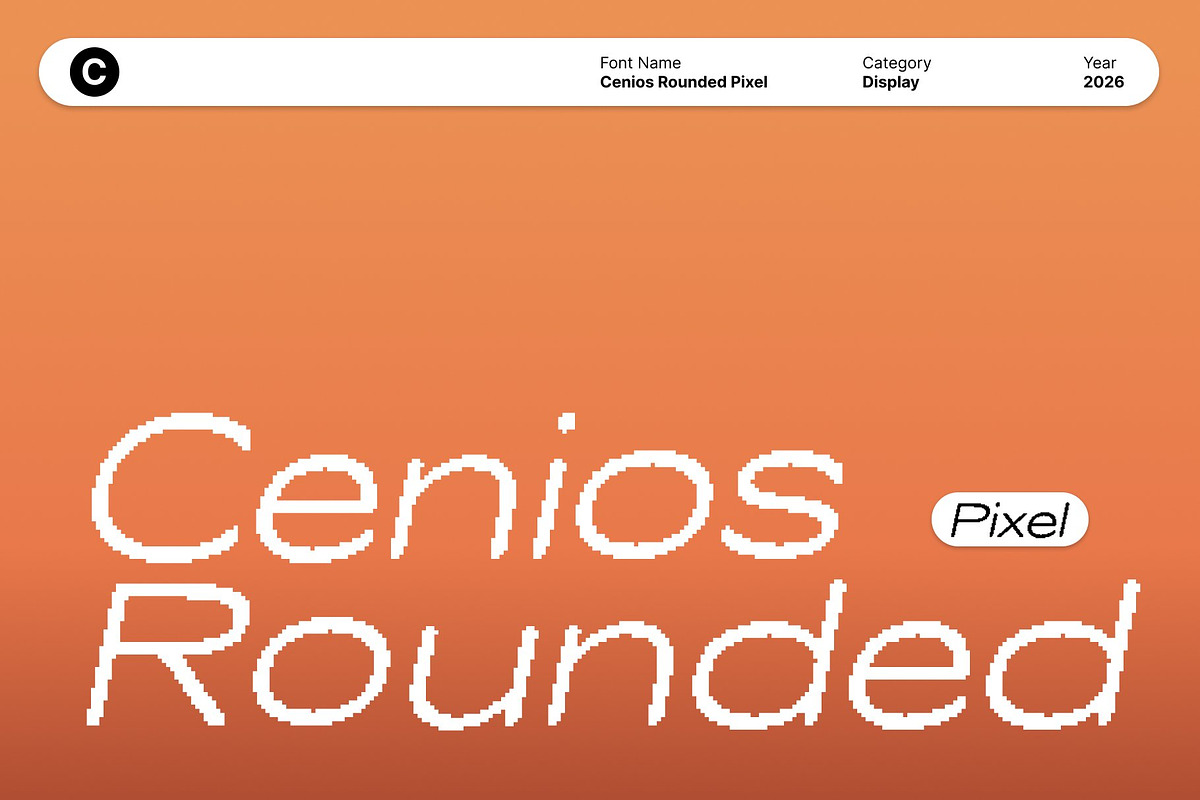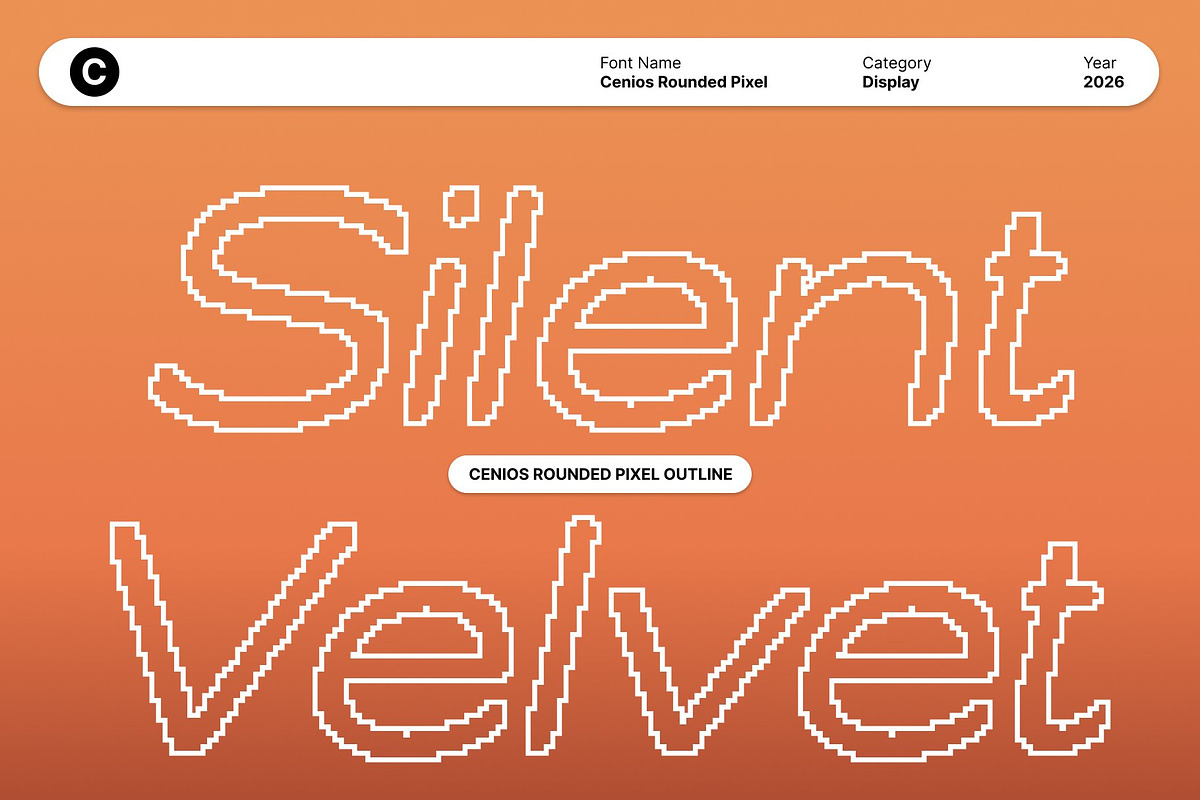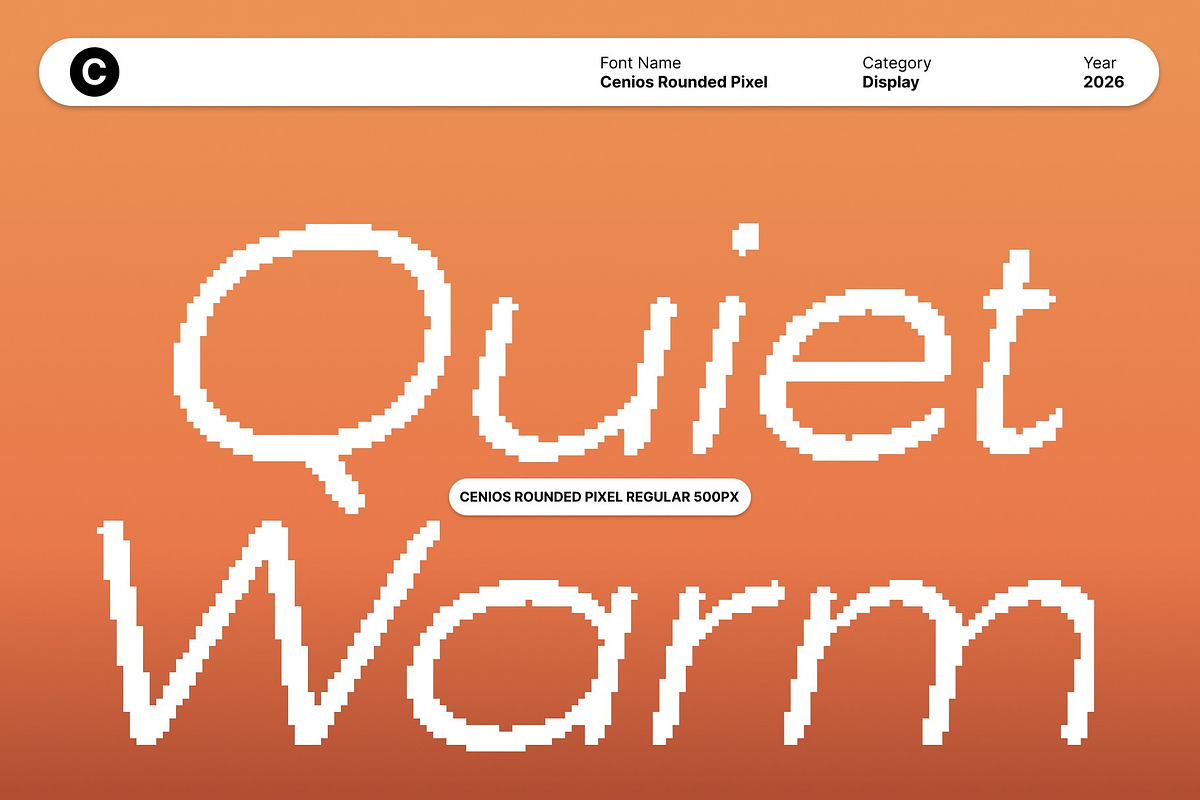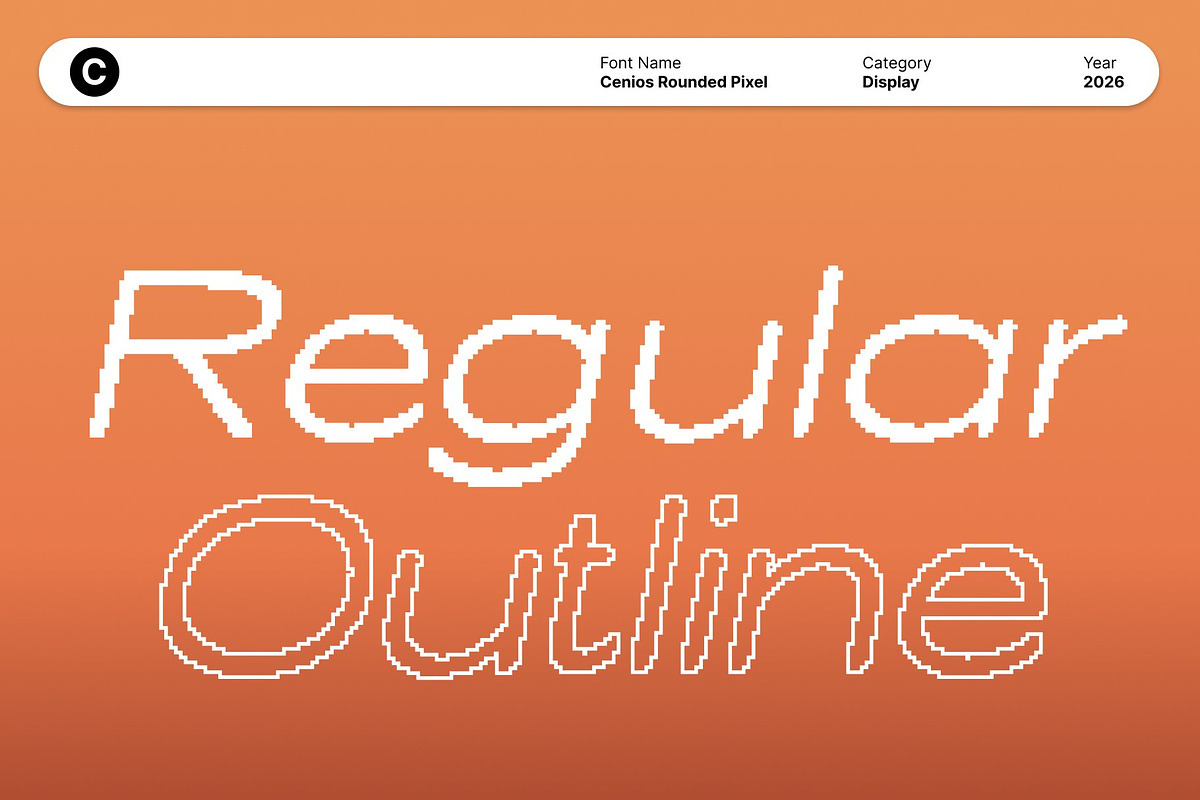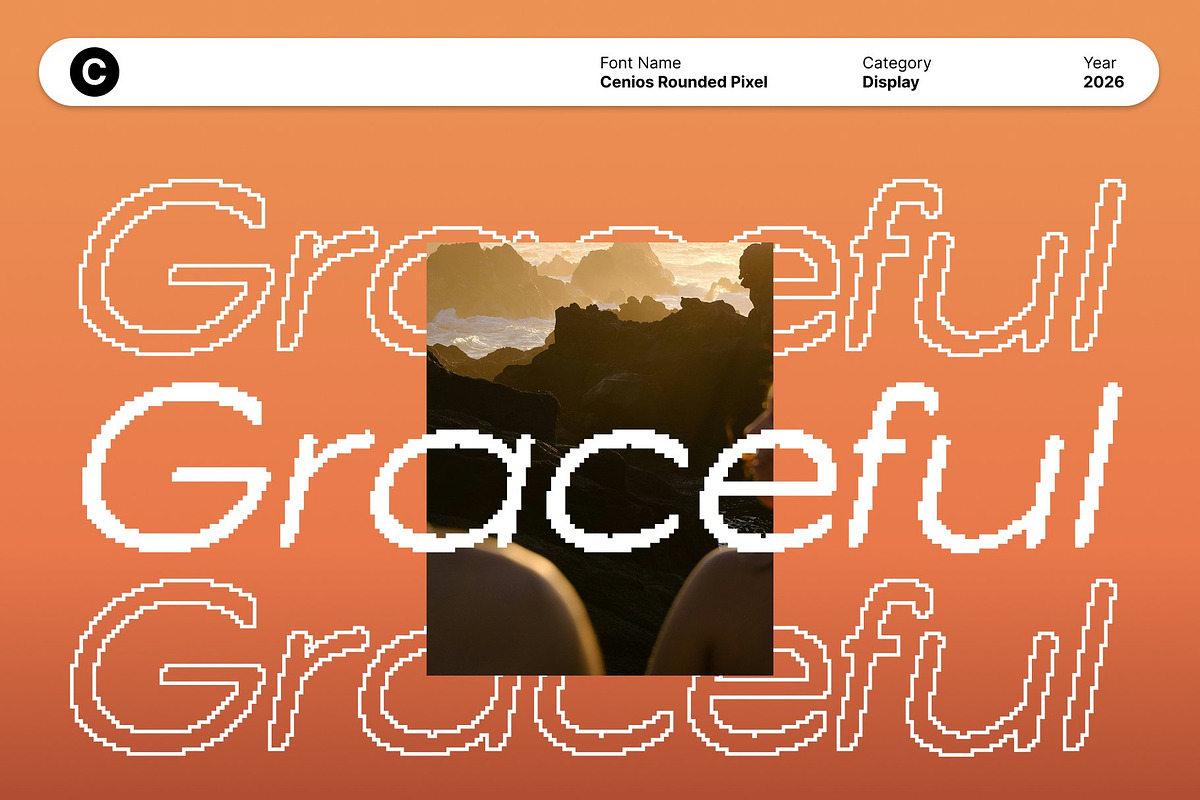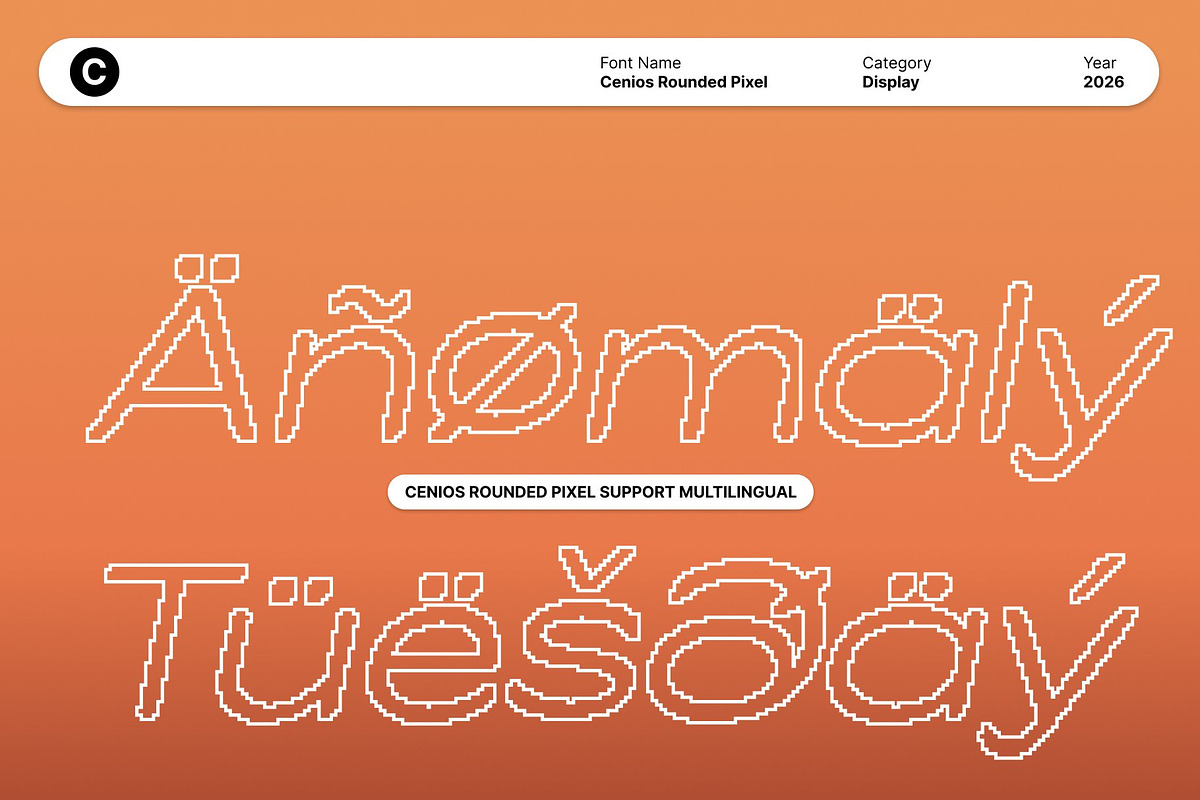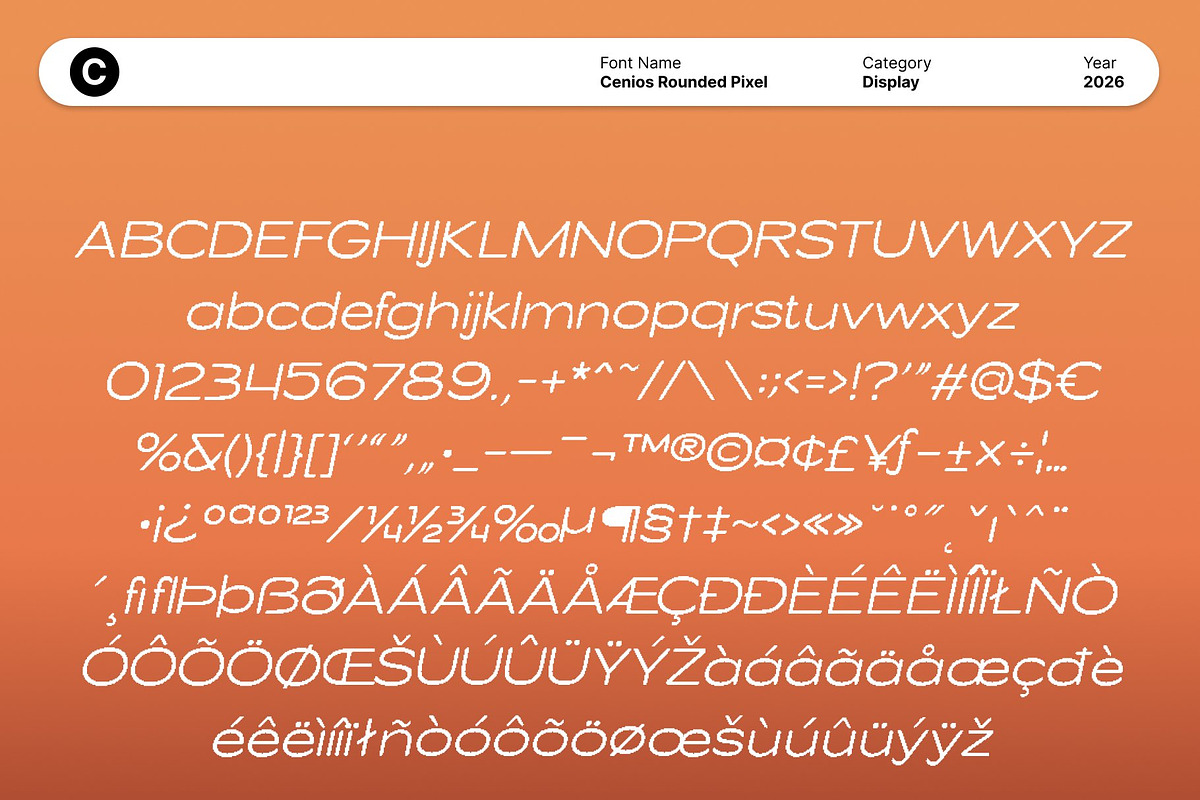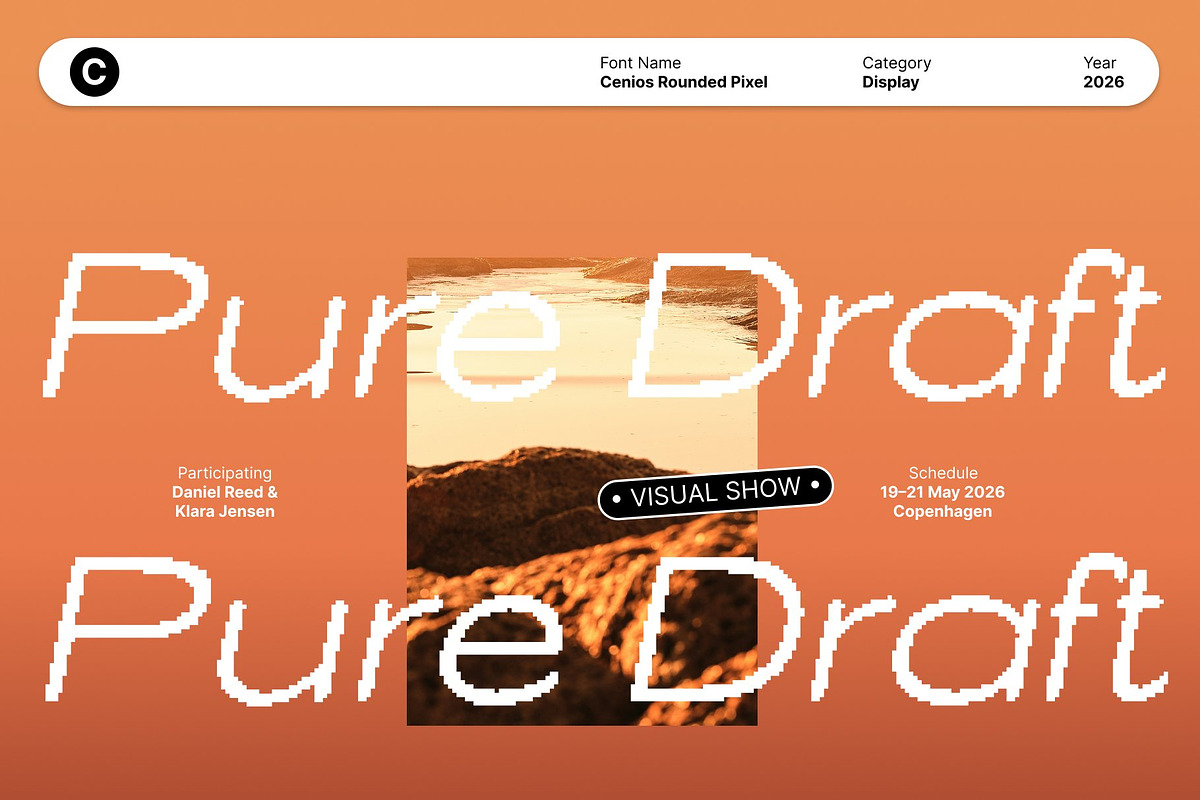
Cenios Rounded Pixel
Cenios Rounded Pixel – Sleek and Corporate
Low-Contrast Sans Serif with Pixel Precision This is a modern sans serif font that combines low-contrast letterforms with subtle pixel detailing. Its minimalist design ensures a clean, professional appearance, making it ideal for corporate and business-oriented applications. The pixel elements add a contemporary, digital-inspired edge, giving the font a unique character while maintaining clarity and legibility.
Neat, Precise, and Approachable With uniform strokes and carefully rounded stem ends, this font communicates precision and tidiness. The rounded forms soften the overall look, creating an approachable feel without compromising professionalism. The pixel detail subtly reinforces its modern aesthetic, making it suitable for both digital and print applications where sophistication and readability are essential.
Ideal for Corporate Communication This font excels in a variety of corporate design projects, including branding, presentations, reports, business cards, and websites. Its balanced proportions and clean structure ensure that every word is easily readable while projecting confidence and reliability. The font’s versatile nature allows it to work effectively in large headlines or smaller body text, maintaining consistency across all materials.
Professional Yet Friendly Design Blending corporate elegance with subtle warmth, this font delivers a polished typographic solution for modern businesses. Its low-contrast forms, rounded edges, and pixel-inspired details make it a versatile choice, helping designs convey professionalism, approachability, and contemporary style simultaneously.